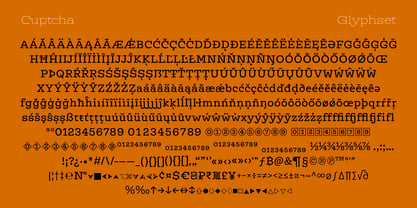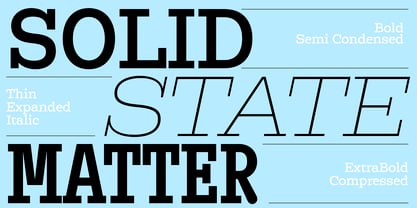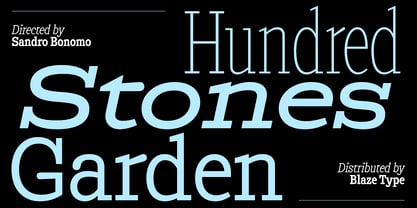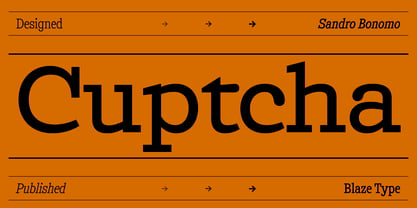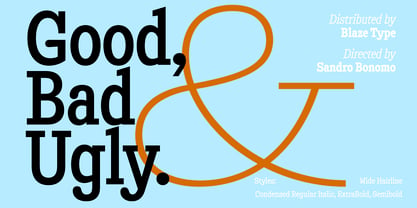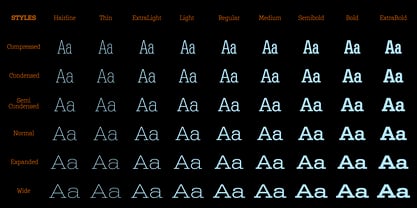
Cuptcha Variable
Die Schriftfamilie Cuptcha Variable wurde von Sandro Bonomo entworfen und von Blaze Type veröffentlicht. Cuptcha Variable enthält 1 Stile. Mehr über diese Familie
Cuptcha is a slab typeface inspired by the wonky, distorted letters found in website security tests. The name fuses "cup" with captcha, a container holding a collection of letters, much like a typeface itself. Those raw, chaotic letterforms were refined into a consistent typographic system, where the sturdiness of squared slab serifs contrasts with soft, rounded terminals, finding a natural balance in the details. The result is a typeface that feels both grounded and characterful, with just enough eccentricity to set it apart. It comes in a wide range of widths and weights, making it versatile in its typographic applications, adaptable from both bold display headlines to refined mid to small body size text.